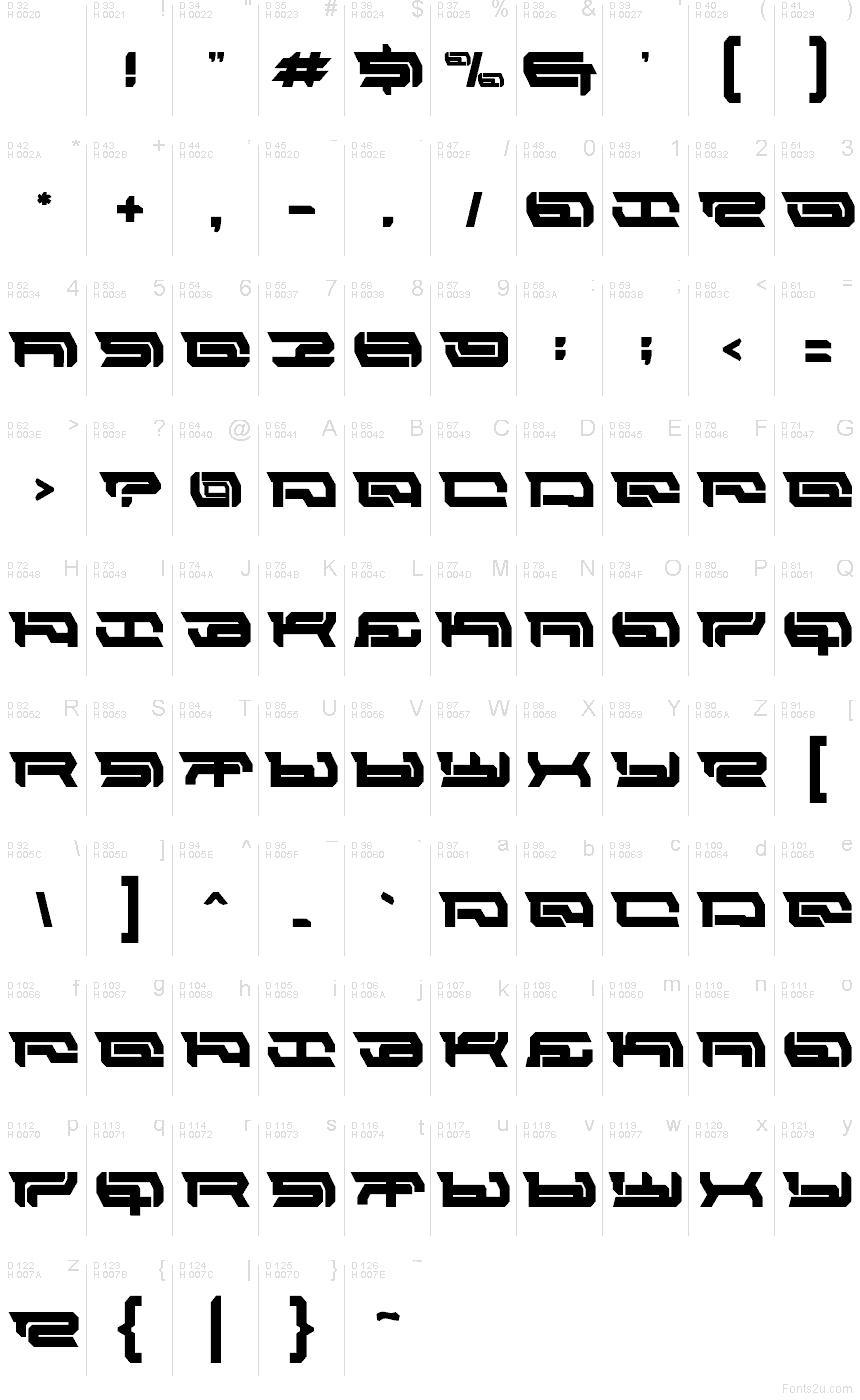
BIZO
Bizo font by Gilang Ternadho of Maikohatta is a free futuristic display typeface that looks like it was cut from armored metal. Heavy, squared curves lock into sharp angles, while the deep inlines carve out a neon-like groove through each letter, giving the wordmark a strong, tech-driven silhouette. The tight, blocky rhythm feels engineered for impact, turning even short names into bold emblems that read clearly at a glance.
Using Bizo, you get a headline style that shines on esports branding, game logos, streaming overlays, sci‑fi posters, tech event graphics, and edgy merchandise. This free font thrives in large sizes where its carved details and chunky mass can really slam off the screen. Pair Bizo with a clean geometric sans in lighter weights for body copy to keep your layouts readable while the main title does the heavy visual lifting.